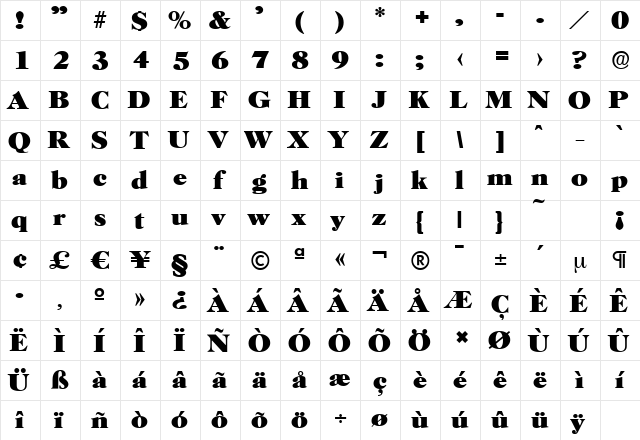
HorshamSerial-Heavy Regular
Design Context for HorshamSerial-Heavy Typeface
HorshamSerial-Heavy offers clean, dependable letterforms without strong stylistic allegiance, making it a practical choice for designers who need flexibility.
Pro Tip: Use HorshamSerial-Heavy in both headline and body roles to test its range before committing to a single application.